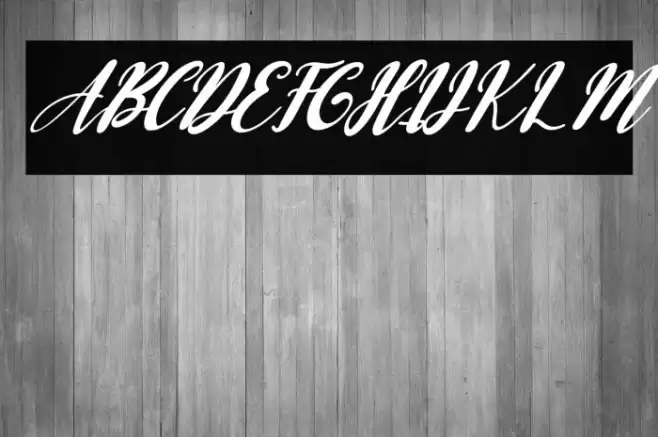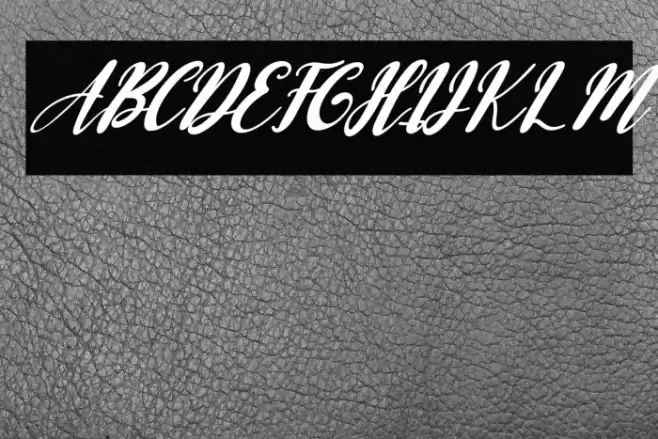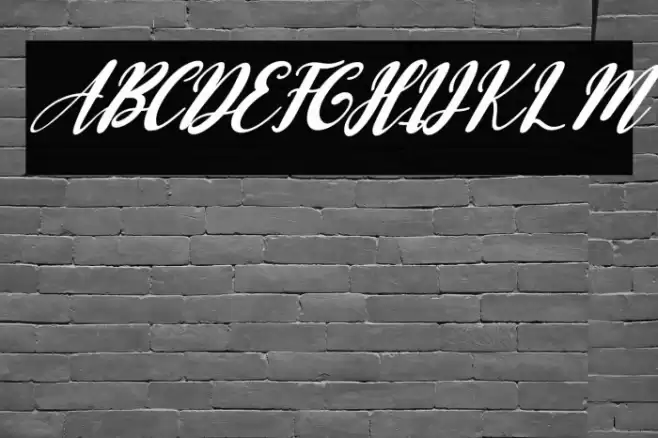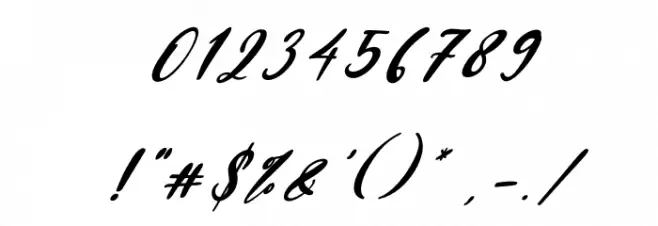
Baby Doll Italic Font
Baby Doll Italic Description
This font exudes a playful and elegant script style, characterized by its flowing, cursive letters that mimic a handwritten appearance. The strokes are smooth and connected, giving it a fluid motion that is both graceful and dynamic. The uppercase letters are bold and slightly slanted, while the lowercase letters maintain a consistent flow with gentle curves. Numbers and special characters are designed to match the overall aesthetic, ensuring a cohesive look. This font is perfect for adding a touch of sophistication and charm to any design project.
A playful and elegant script font with a handwritten appearance from Uncategorized fonts.
- Font: Baby Doll Italic
- Proposed Projects: Ideal for wedding invitations, greeting cards, branding, and logo design.
- Use Case: Logos, Headlines, Invitations
Baby Doll Italic UPPERCASE
Baby Doll Italic LOWERCASE
Baby Doll Italic OTHER CHARS